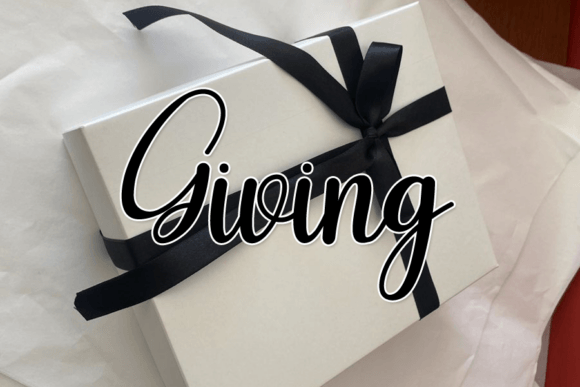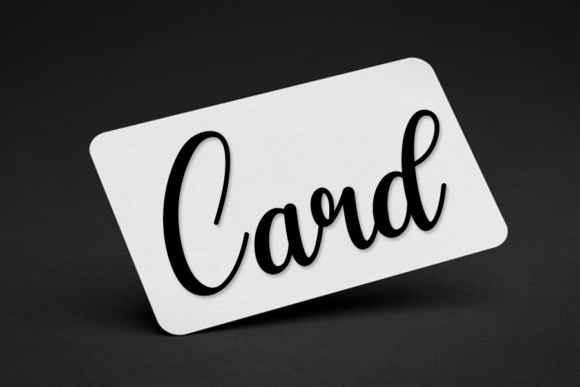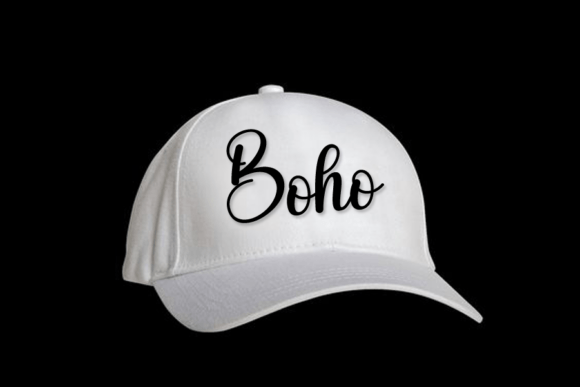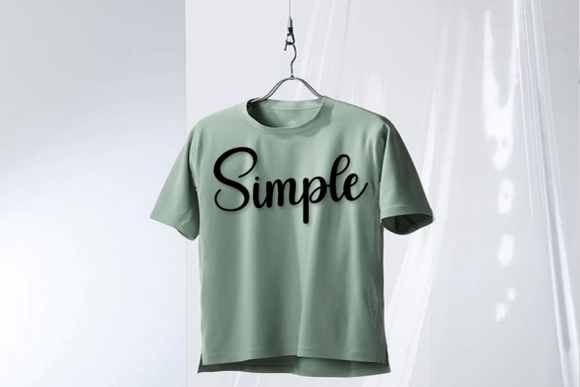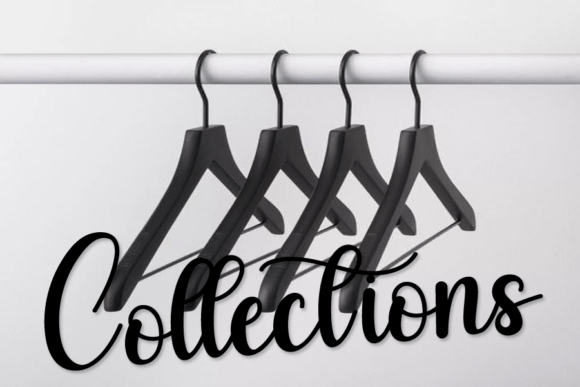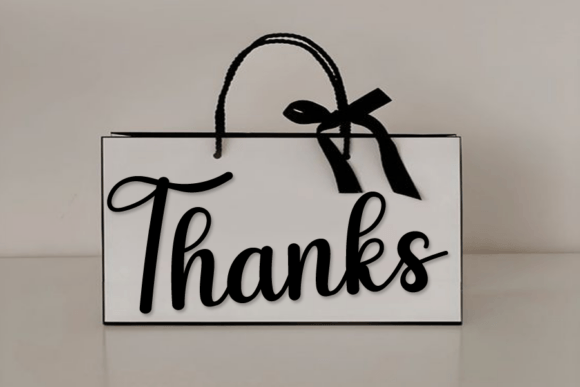
Introduction to Angela Dancing Font
Angela Dancing is a playful, handwritten font.
It has a casual, yet stylish vibe, perfect for making your text stand out with a fun, energetic feel .